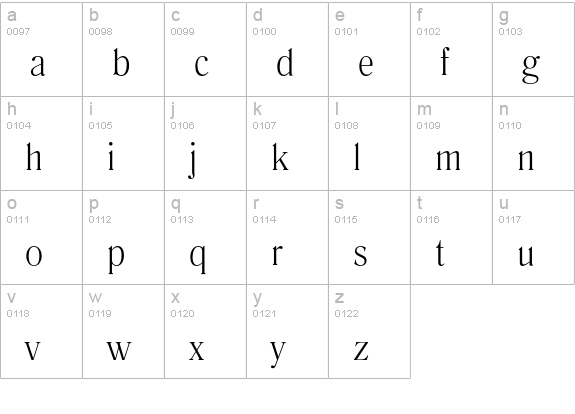
RomanaEF-Light Font Details
RomanaEF-Light is a refined, elegant variant in the RomanaEF typeface family \xE2\x80\x94 well suited to elegant body text, refined sub-headings, and luxury branding.
RomanaEF-Light is a modern and elegant font that exudes sophistication and style. With its clean lines and subtle curves, this font is perfect for a wide range of design projects, from branding to editorial design. The light weight of the font adds a touch of delicacy and refinement to any text. What's even better is that RomanaEF-Light is available for free download at FontsMarket.com. This means that you can easily access this beautiful font without any cost, making it a valuable addition to your font collection. Whether you're working on a personal project or a professional assignment, RomanaEF-Light will elevate your design with its timeless appeal. Download it for free today and enhance your creative work with this exquisite font.